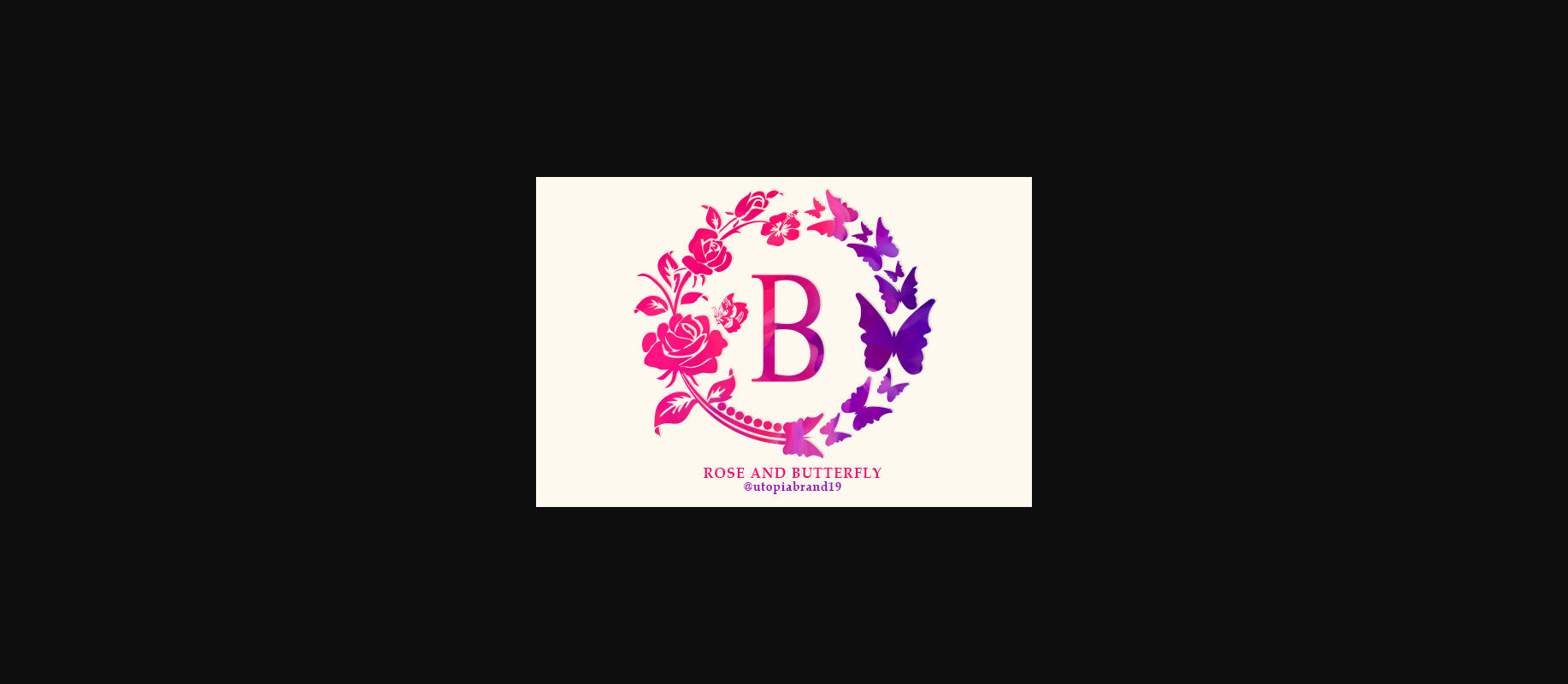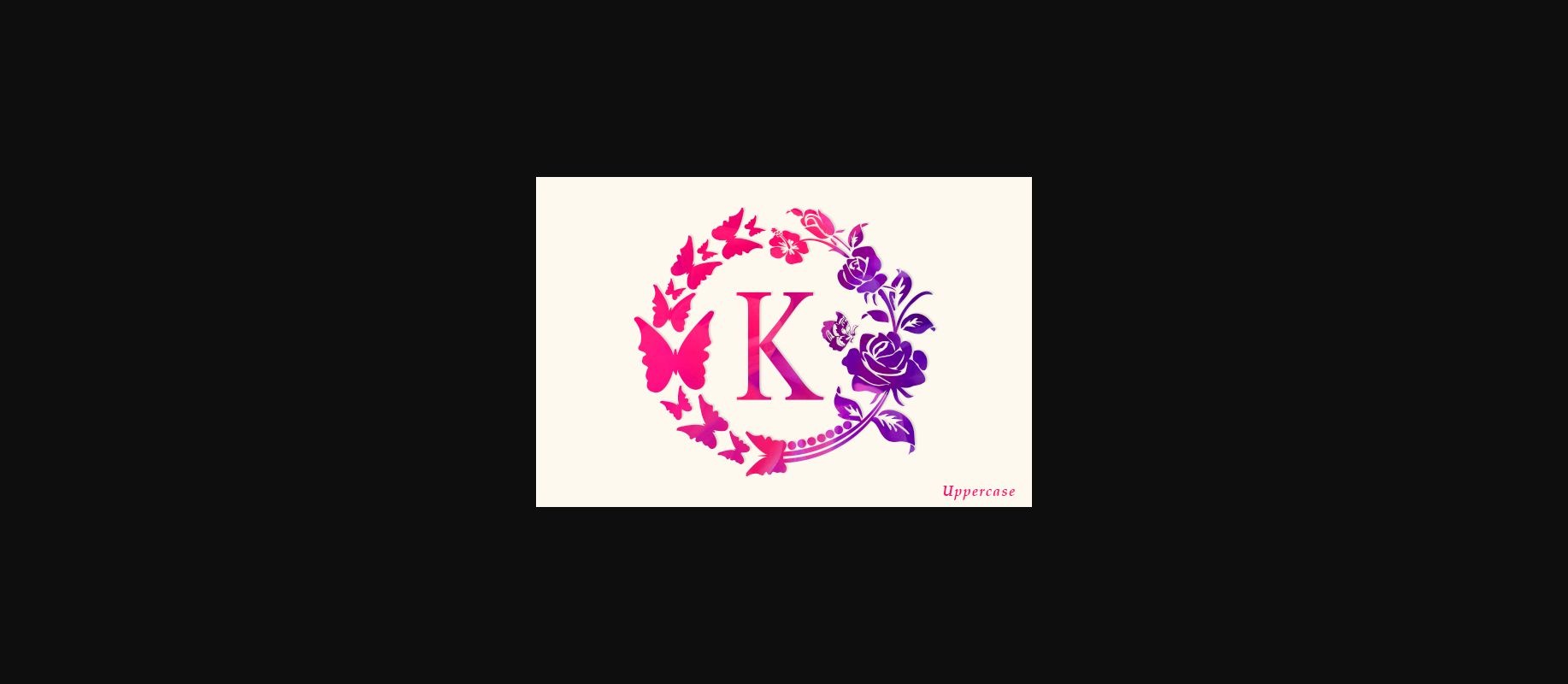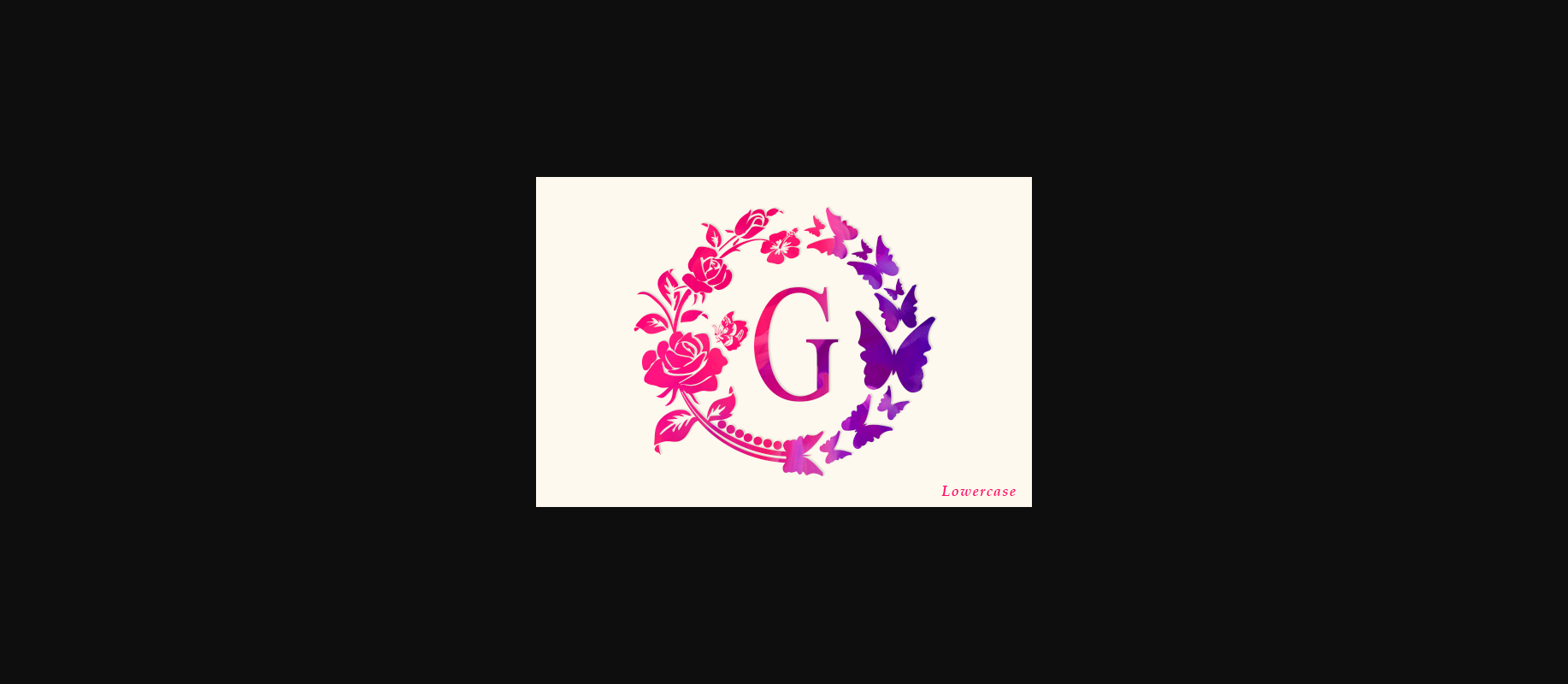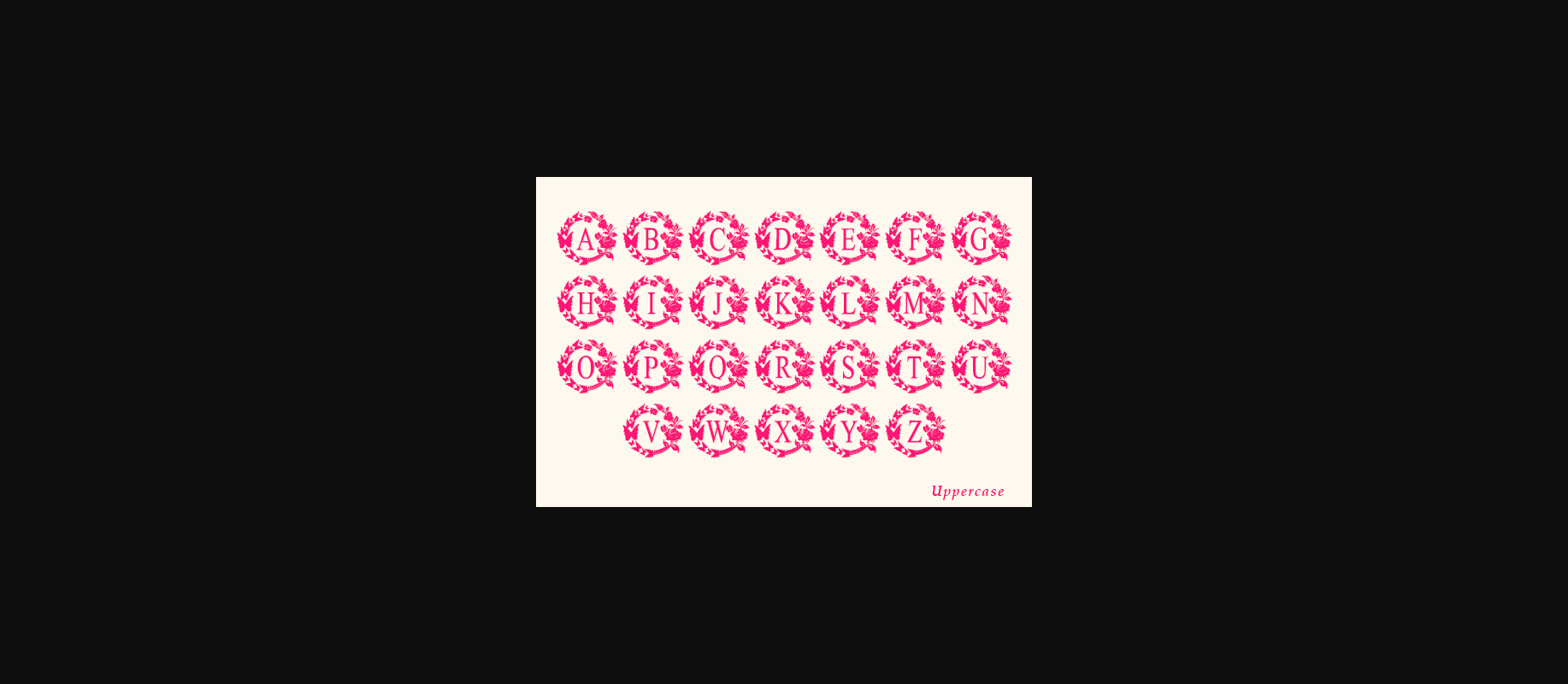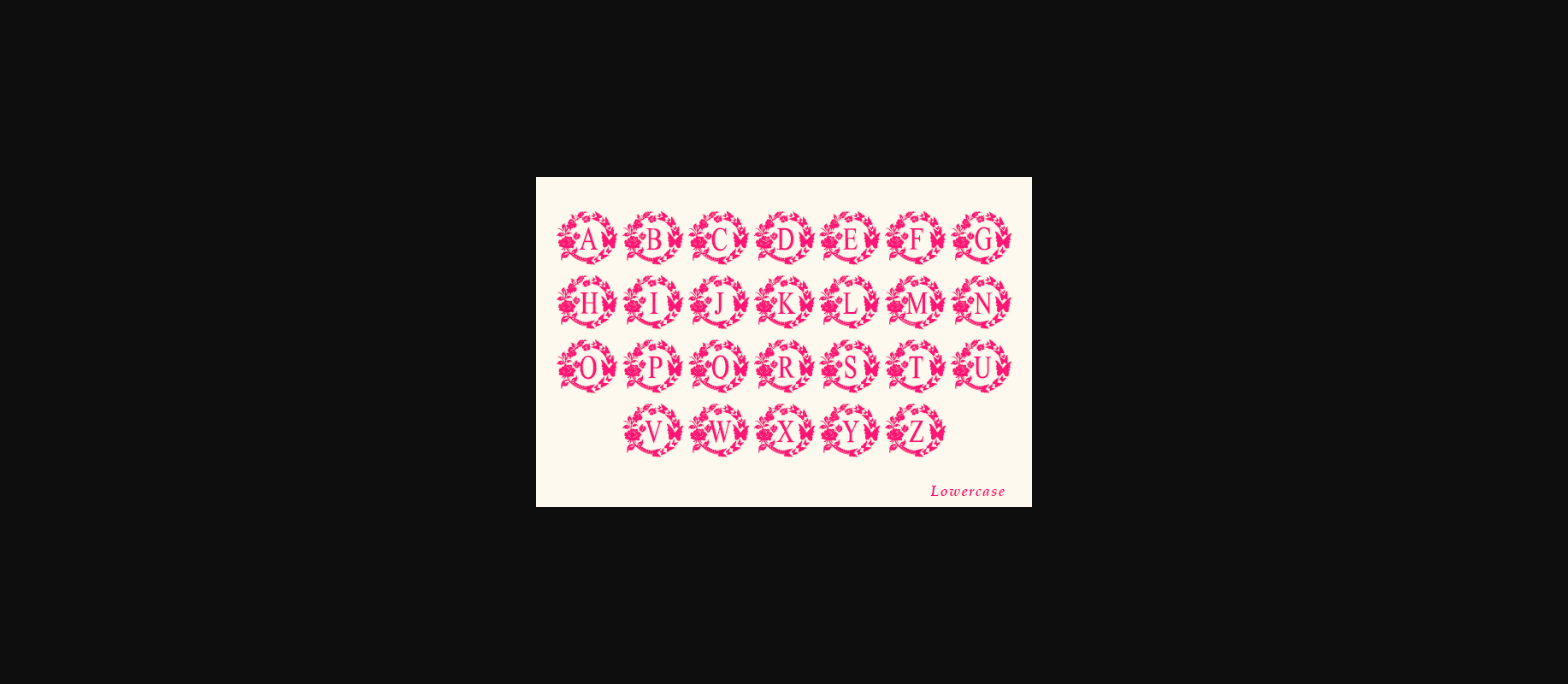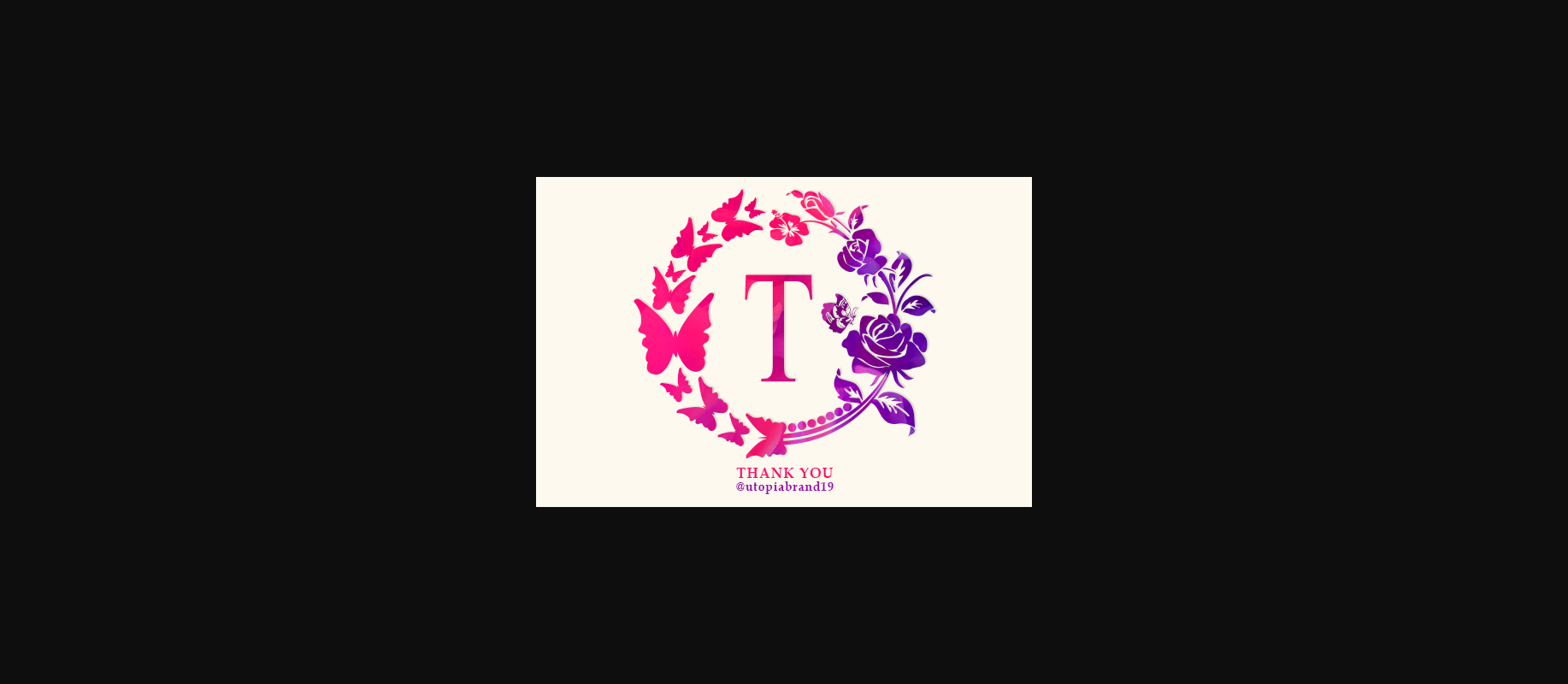
Rose and Butterfly Monogram Font
About Rose and Butterfly Monogram Font
Rose and Butterfly Monogram is a charming decorative font. Fall in love with its authentic feel and use it to create gorgeous invitations, beautiful stationary art, eye-catching social media posts, and cute greeting cards.